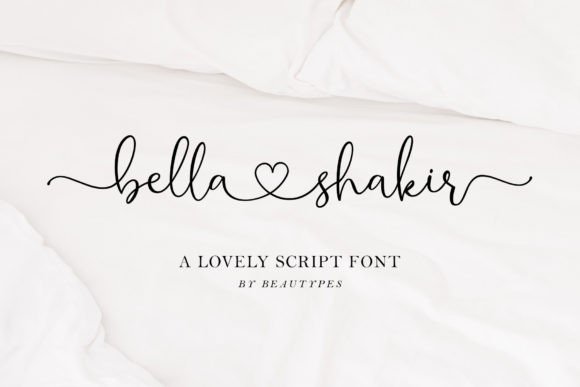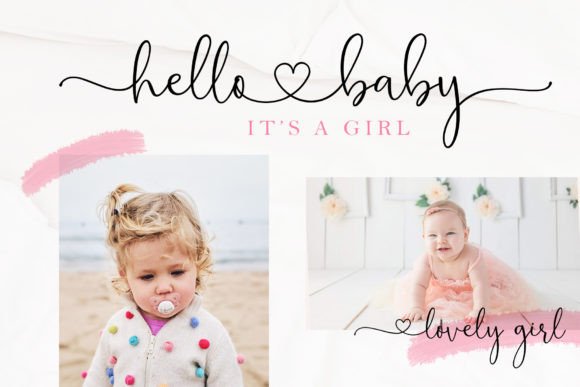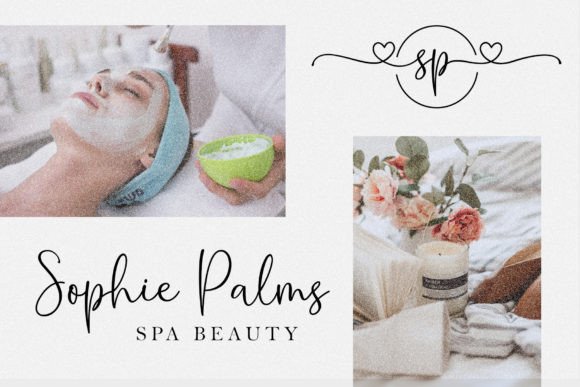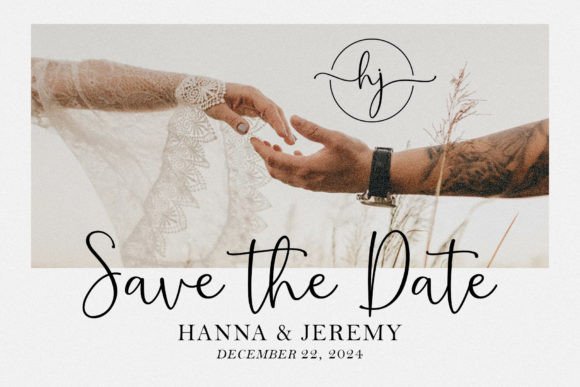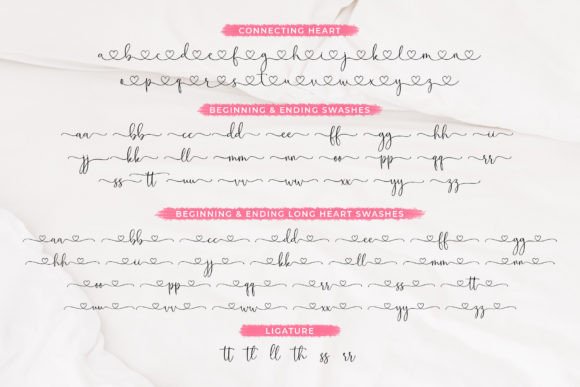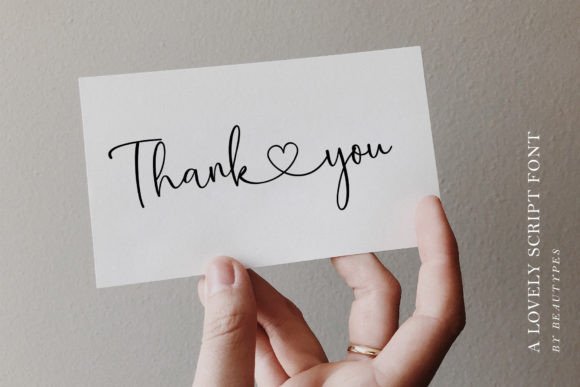
Bella Shakir Font
Bella Syakir is a beautiful and chic handwritten font. This font is suitable for branding, wedding invitations, and other romantic projects. This font is PUA encoded which means you can access all of the glyphs and swashes with ease!